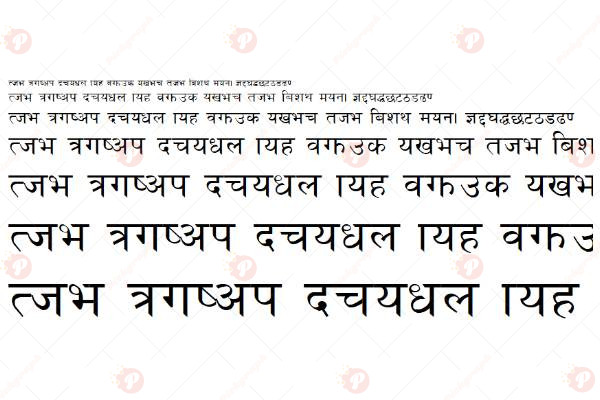
The Ritu Font is a graceful and stylish Devanagari typeface designed for Hindi, Sanskrit, Marathi, and Nepali text. Its clean, elegant lines make it ideal for posters, invitations, book covers, social media graphics, and cultural branding projects.
Ritu Font combines readability with traditional aesthetic, giving your designs a modern yet authentic Devanagari touch. Perfect for festivals, educational materials, and personal or commercial projects that require a polished and professional look.
Supported Script: Devanagari (Hindi / Sanskrit / Marathi / Nepali)
Font Style: Regular / Elegant Typeface
| Optimum Size | Large (Display / Poster) |